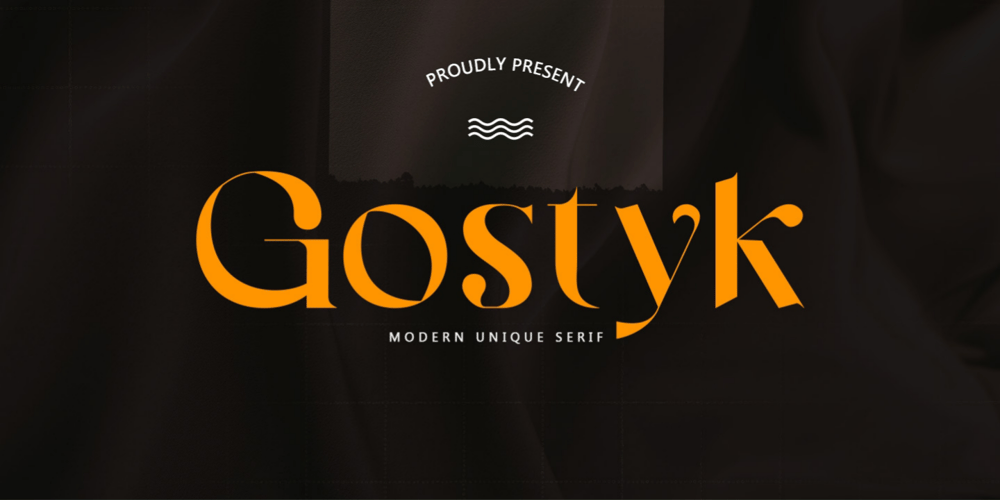
Gostyk Font Family was designed by Rina Kartina and published by Saxofont. Gostyk contains 1 styles and family package options. Gostyk is a bold and stylish font. Perfect for use in a variety of purposes, such as writing articles, magazines, branding projects or simply as stylish text to display on your screenshots.